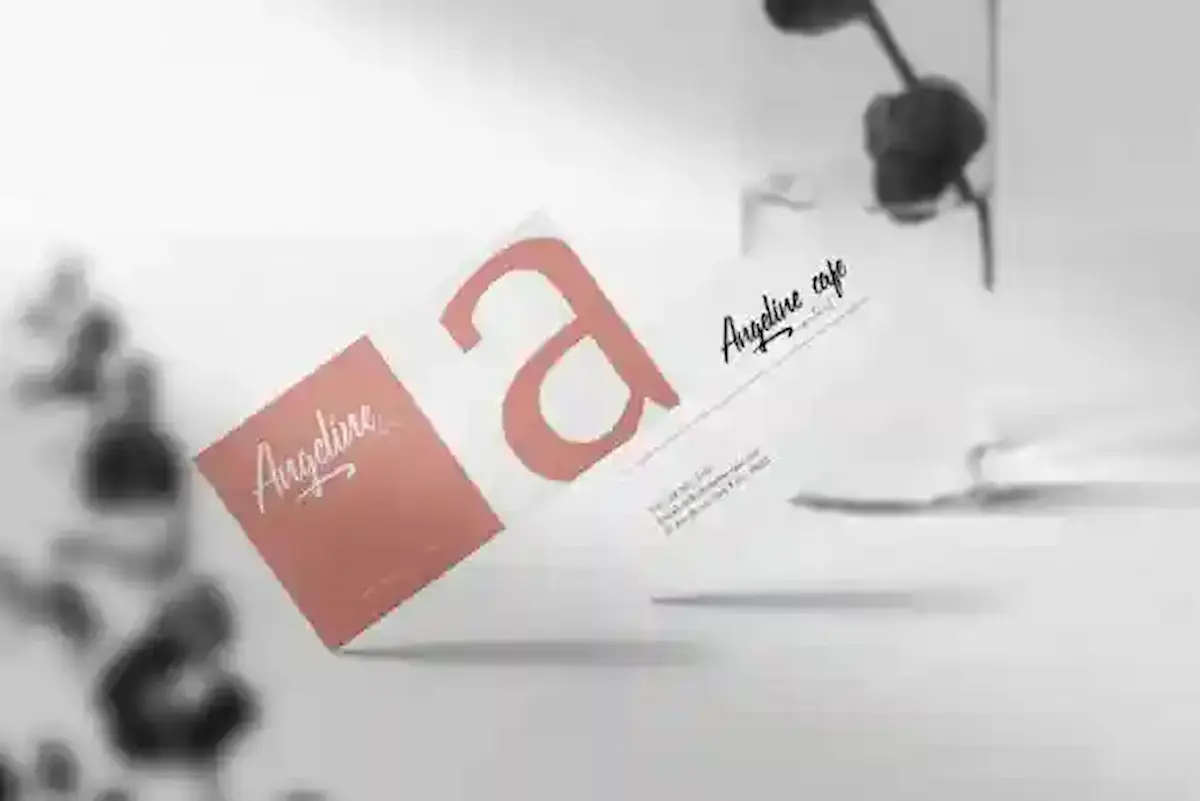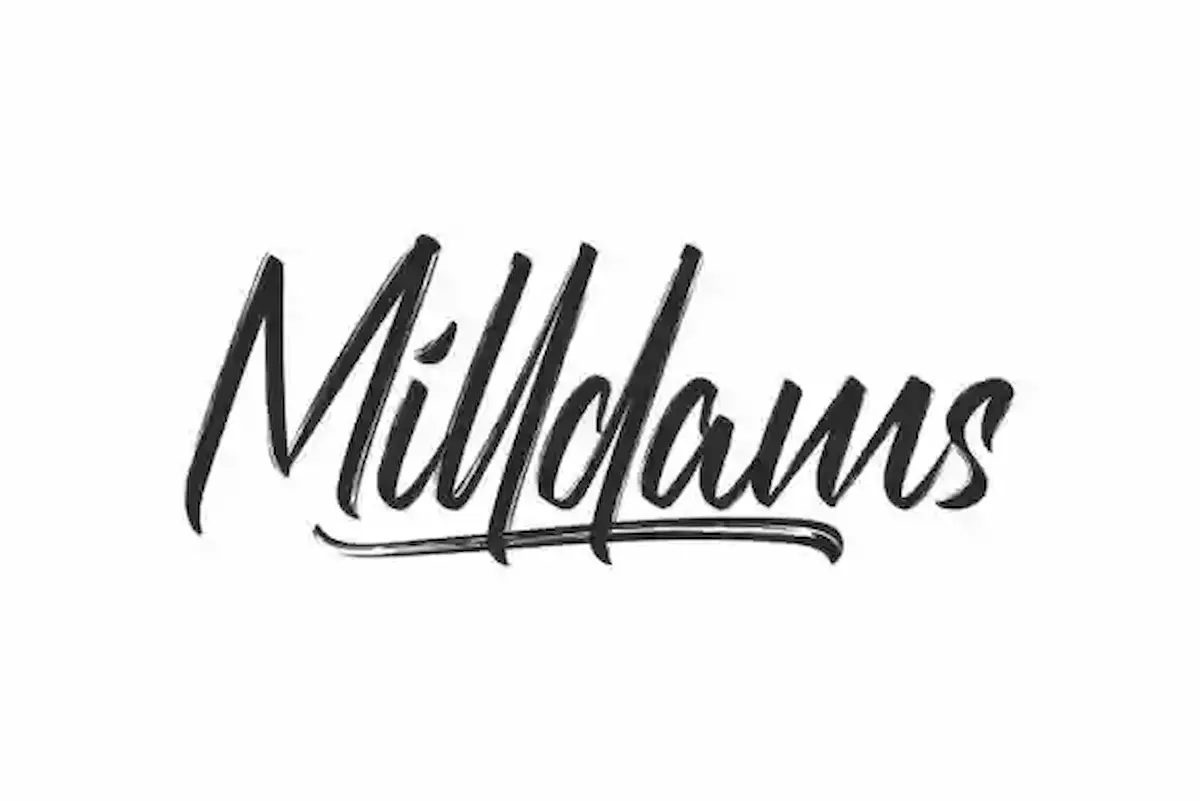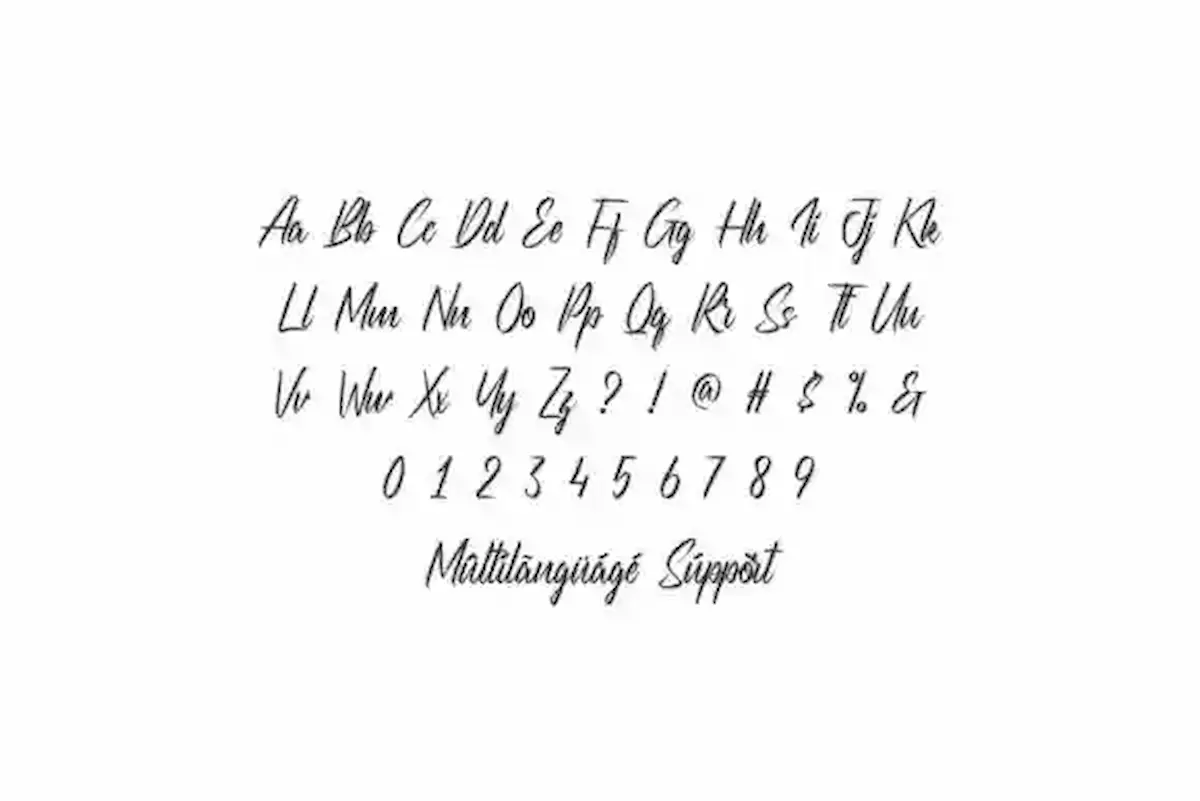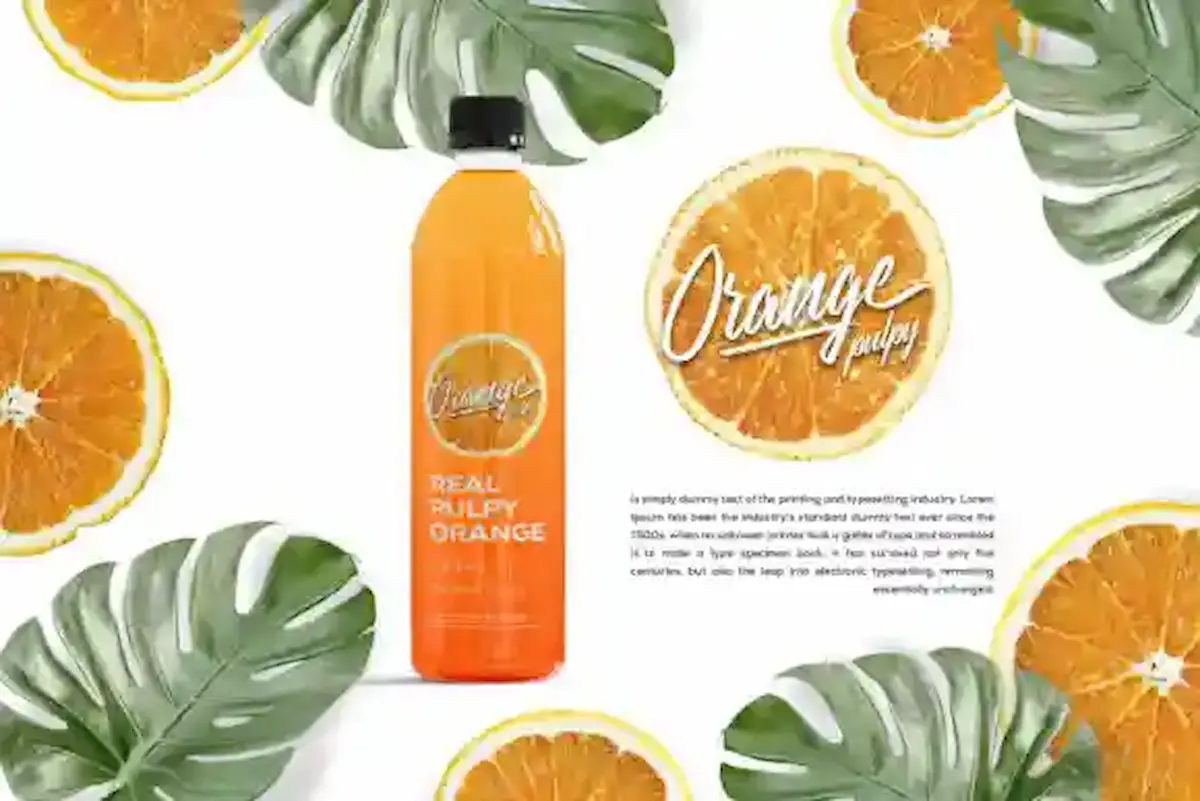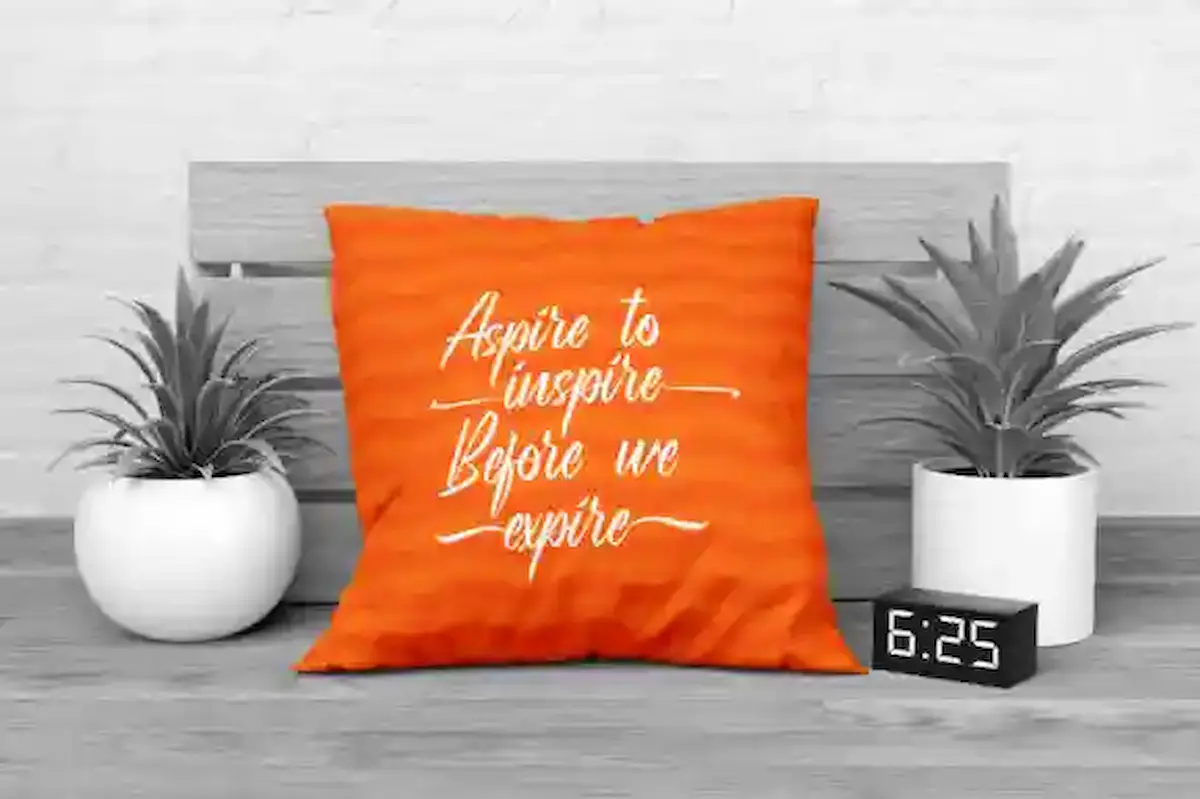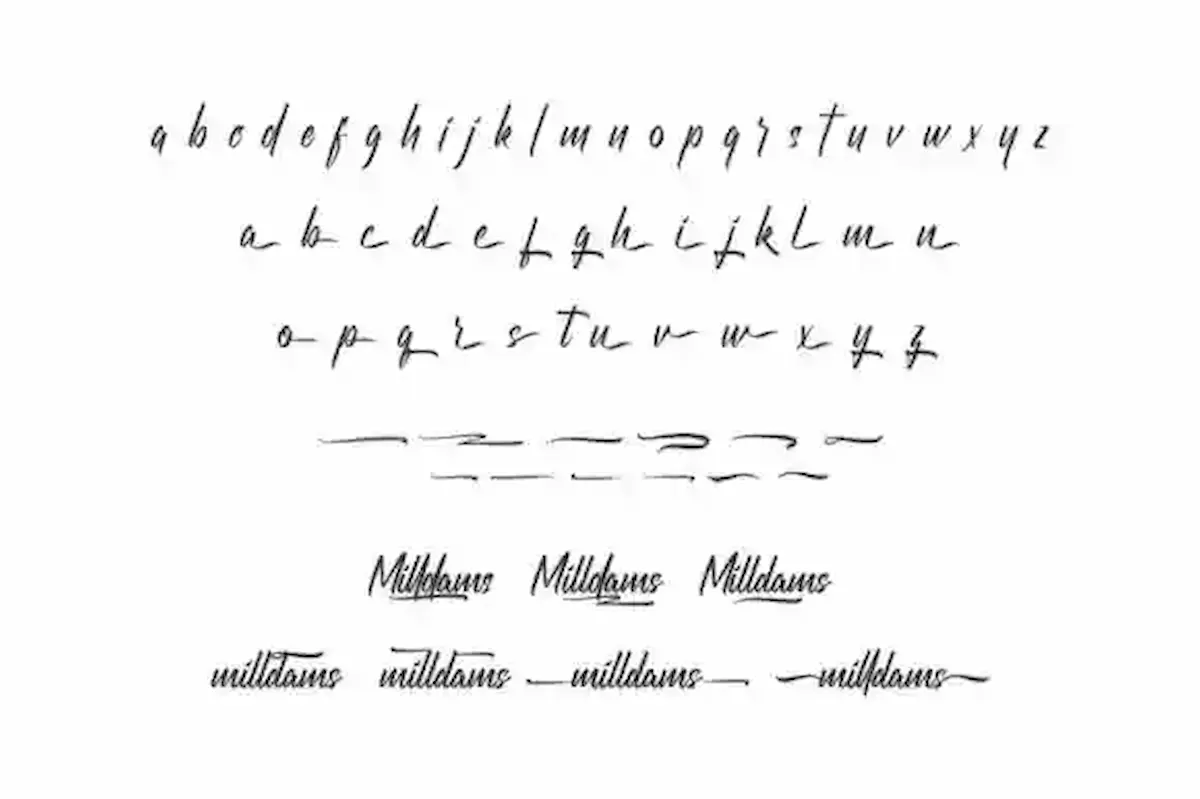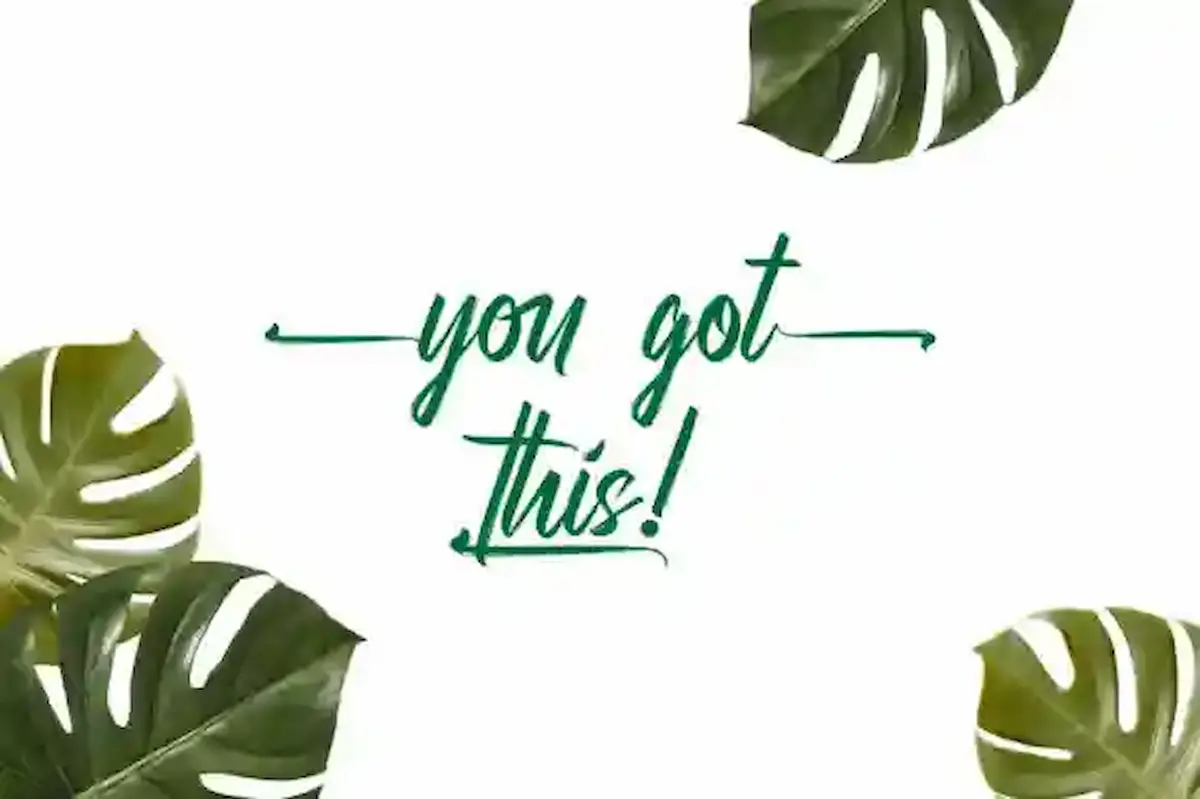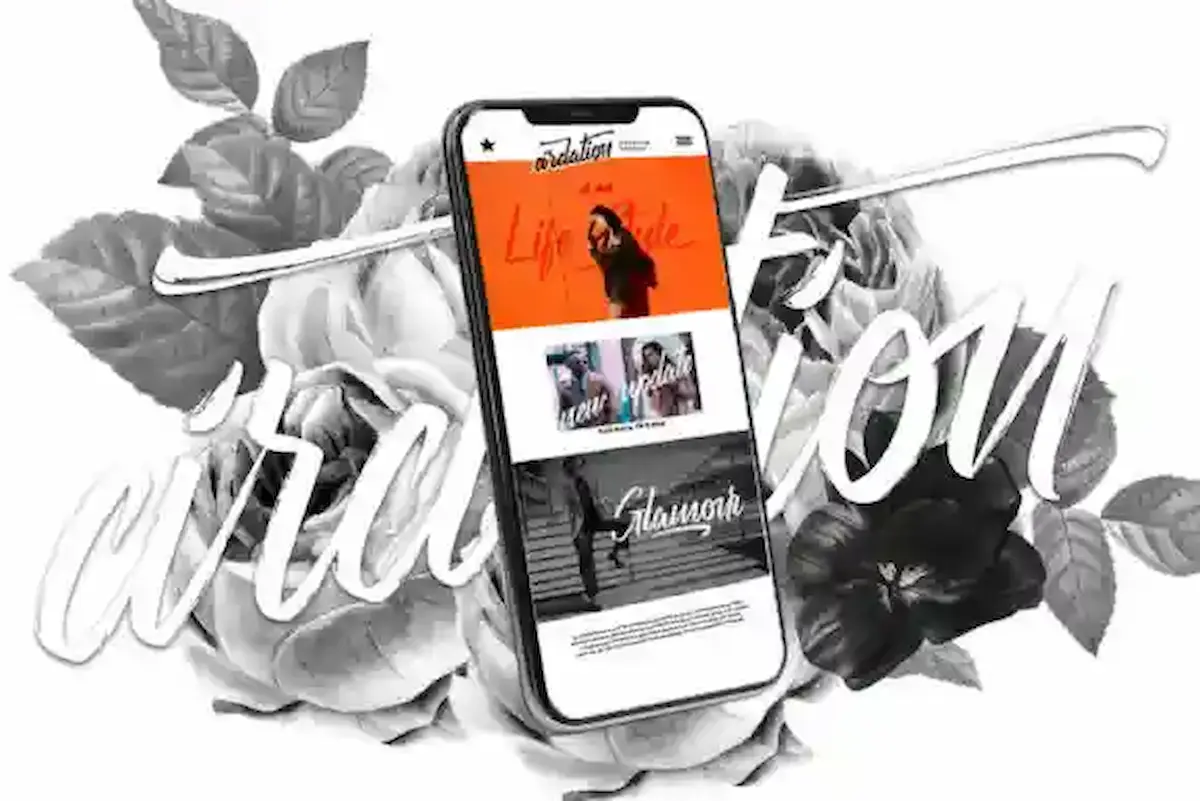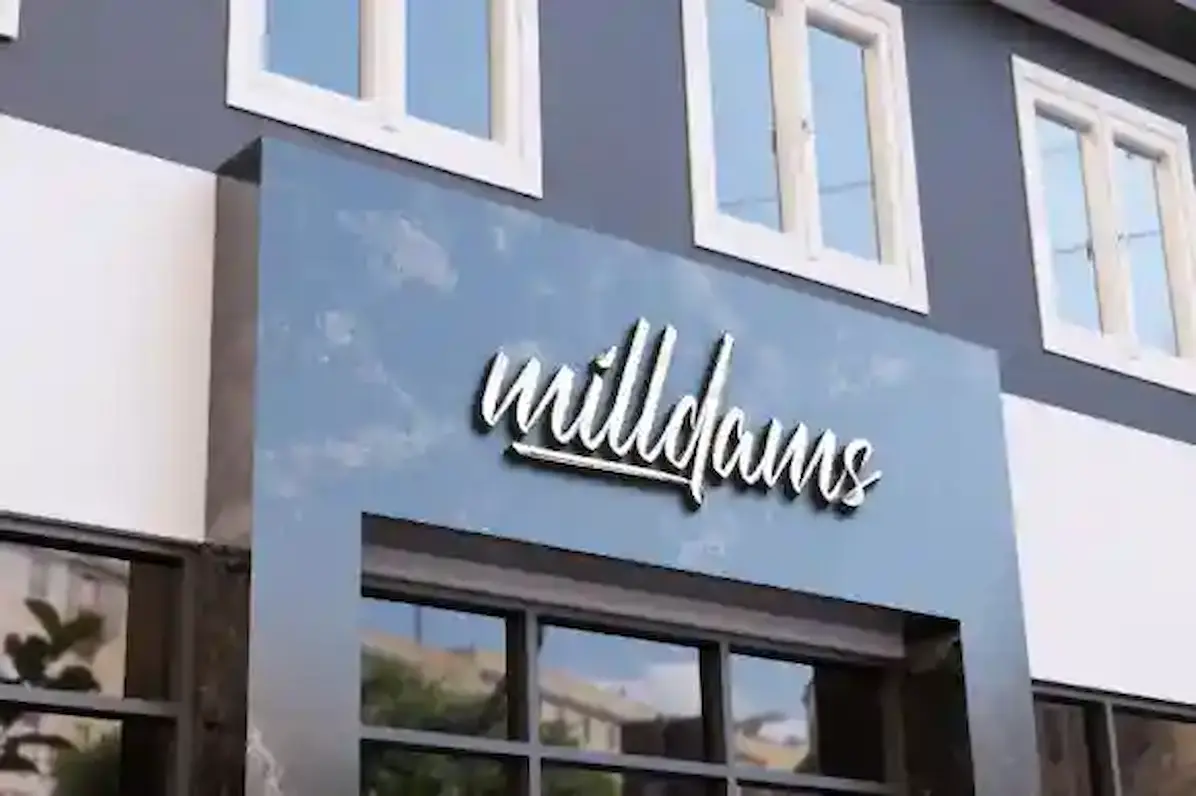
Milldams is a bold, handcrafted brush font created by NihStudio, originally released in 2020. Designed in our professional studio in Indonesia, Milldams delivers an authentic, textured hand-lettering style that’s perfect for creative projects.
This brush font is ideal for various branding and promotional materials. Whether you’re designing logos, business cards, flyers, brochures, packaging, posters, or signage, Milldams offers a natural, artistic feel that enhances any project. It’s perfect for industries like cosmetics, houseware, fashion, music, coffee shops, gaming, motorsports, and more.
Milldams Font Features:
Unique textured brush strokes
Stylish and bold handwritten character set
Smooth kerning and spacing
Fully accessible PUA-encoded characters
This font carries a strong identity with a versatile look—combining beauty, sporty edge, and artistic flair. It’s well-suited for café menus, event posters, merchandise, musician branding, and promotional content.